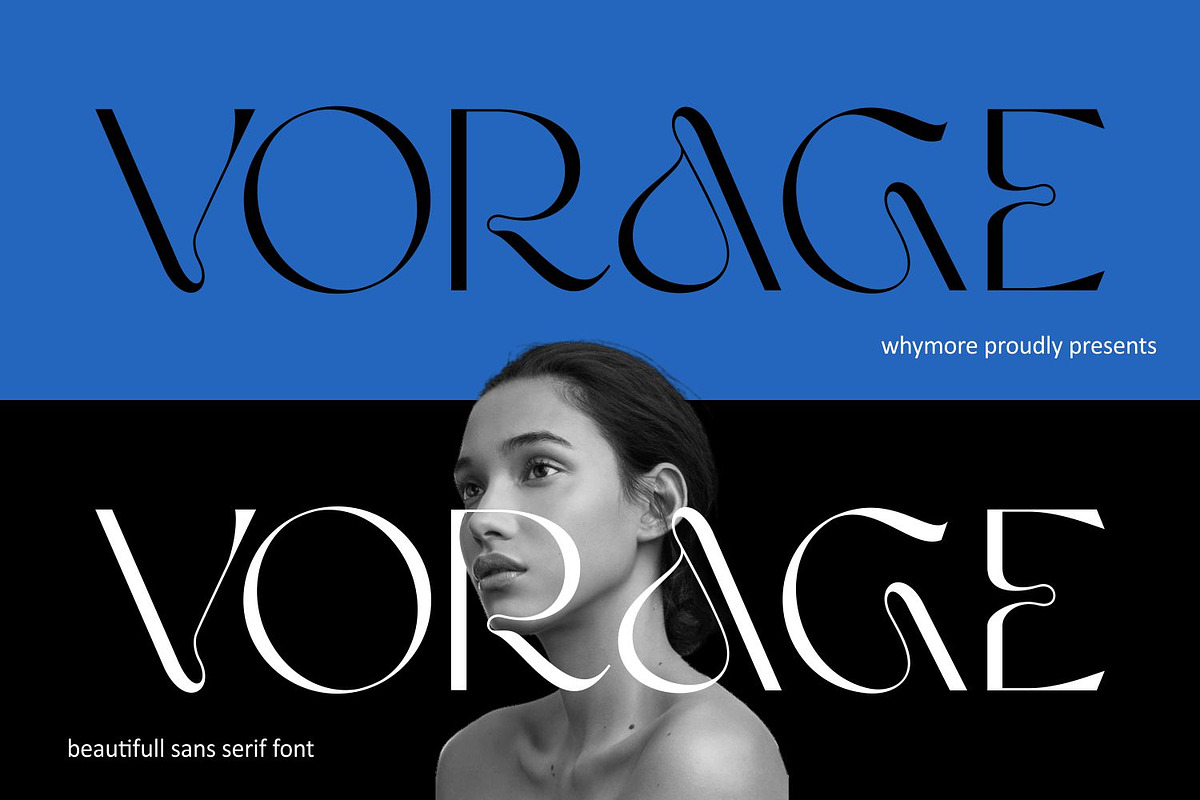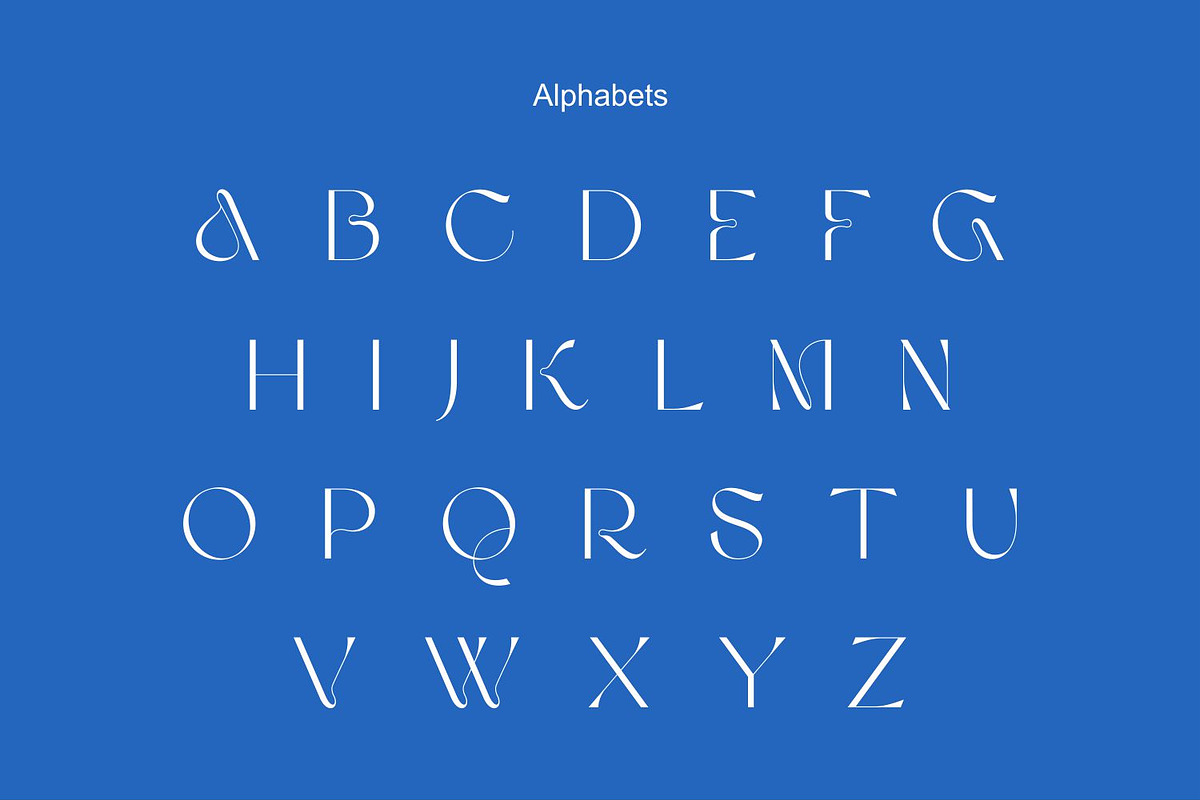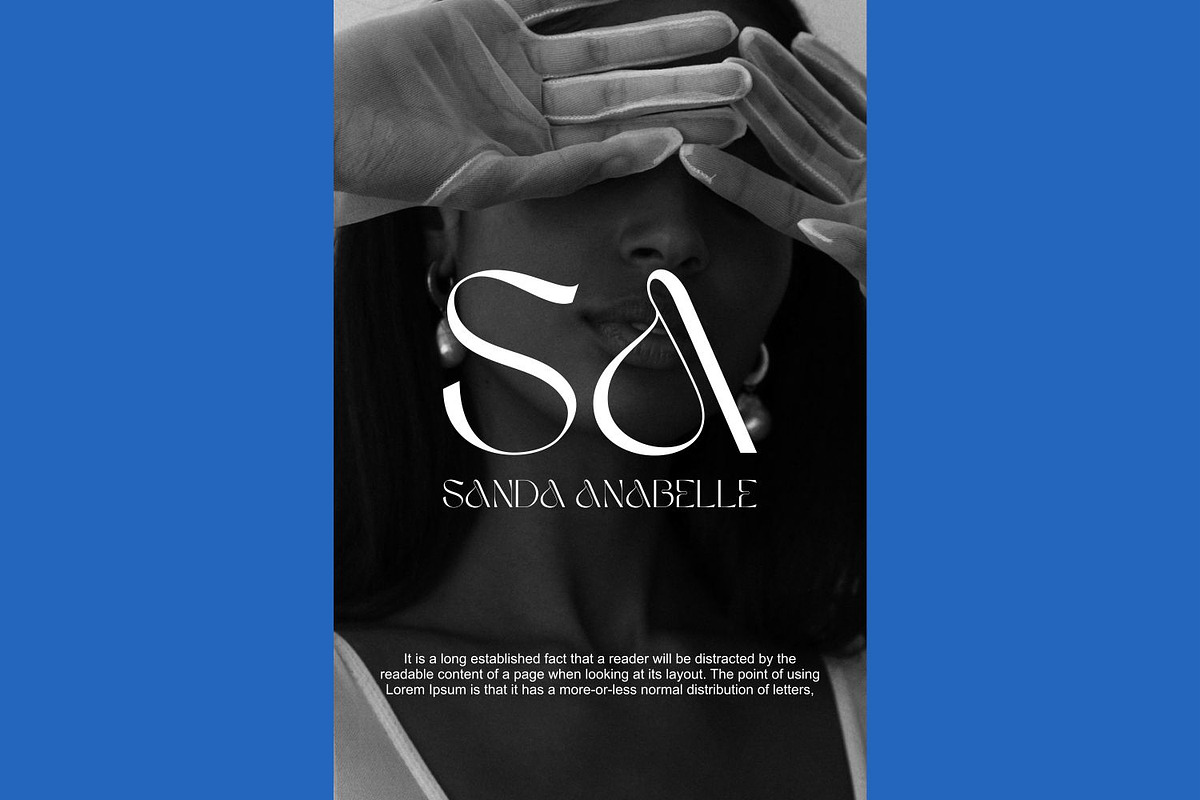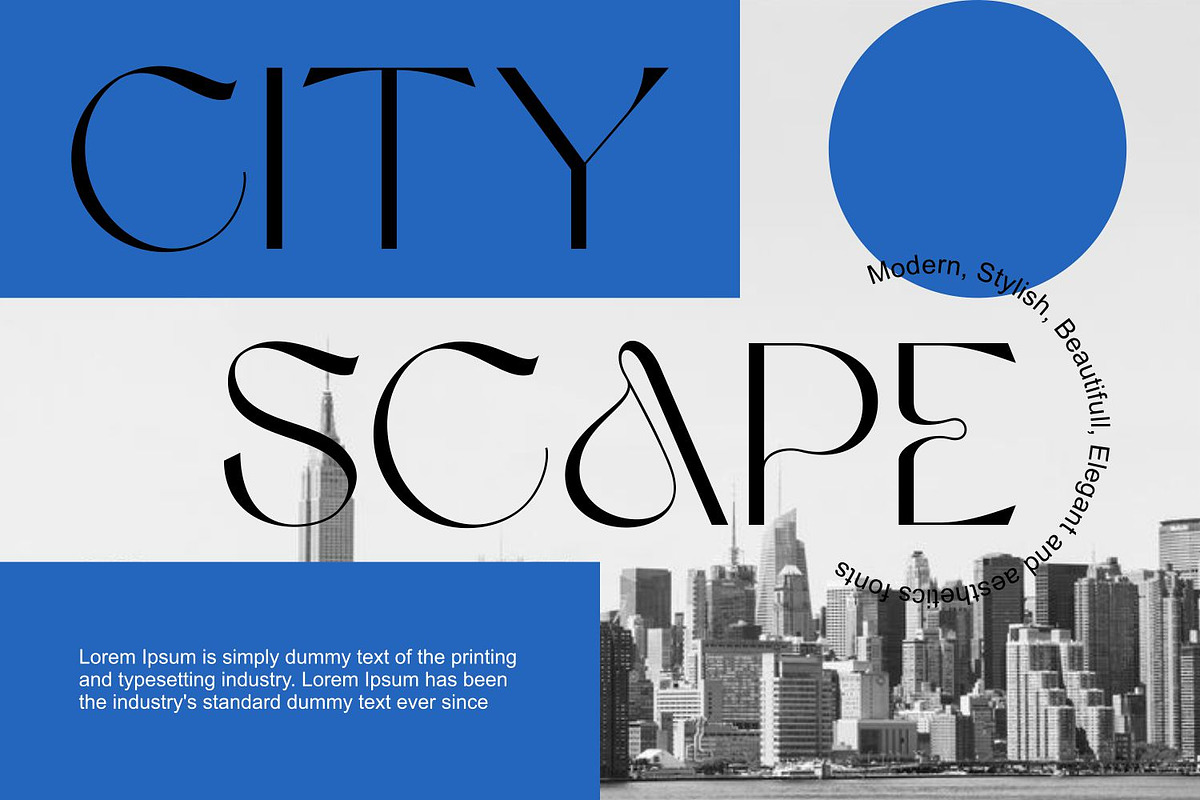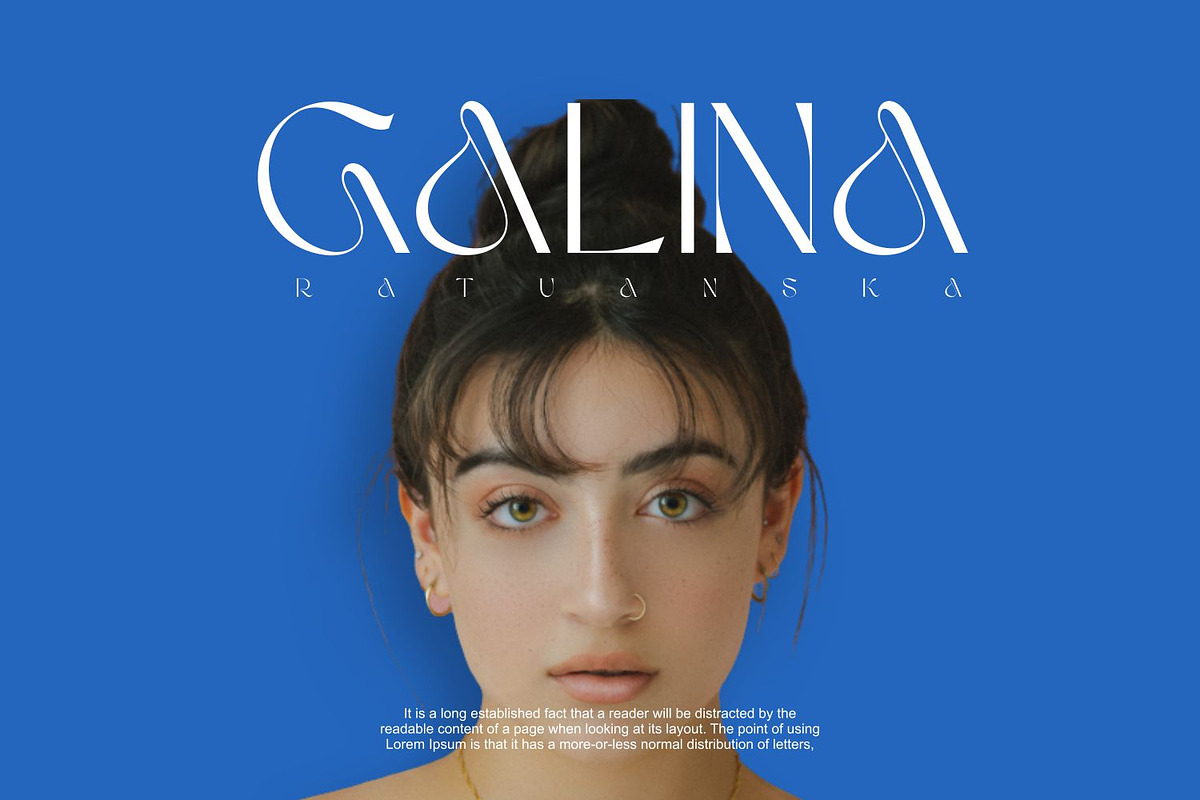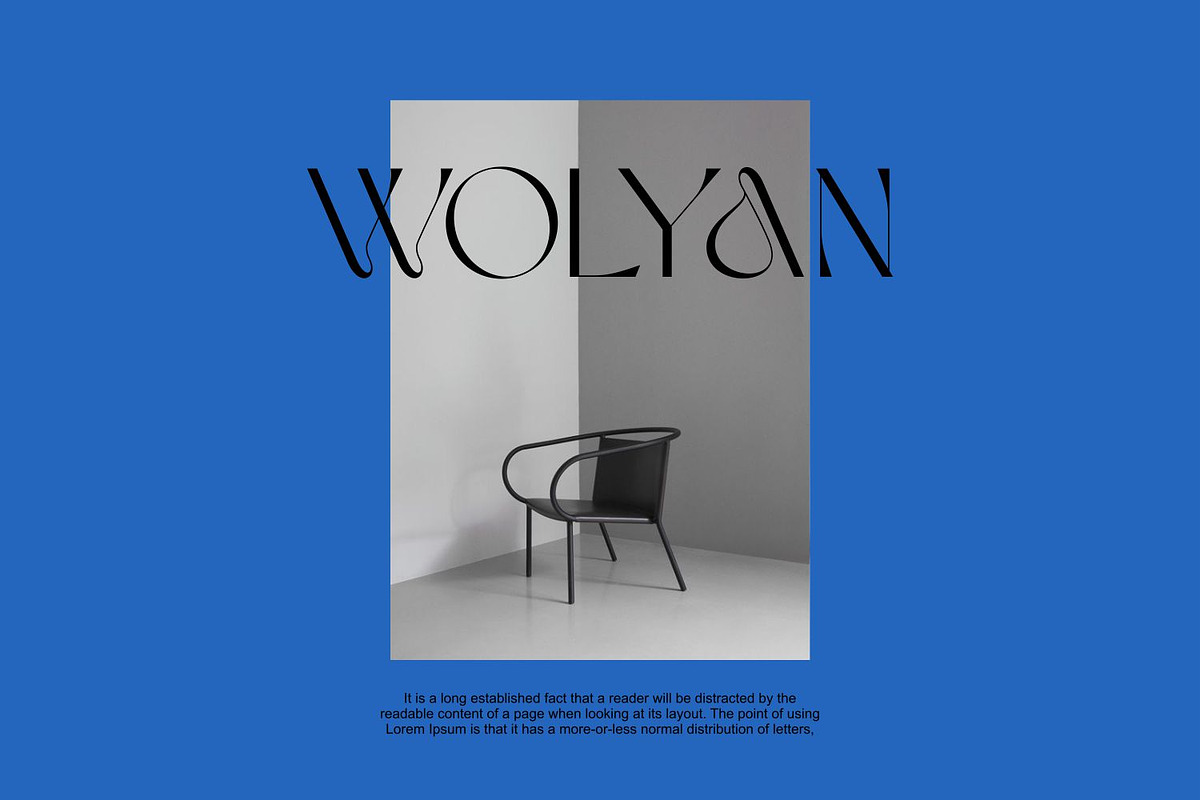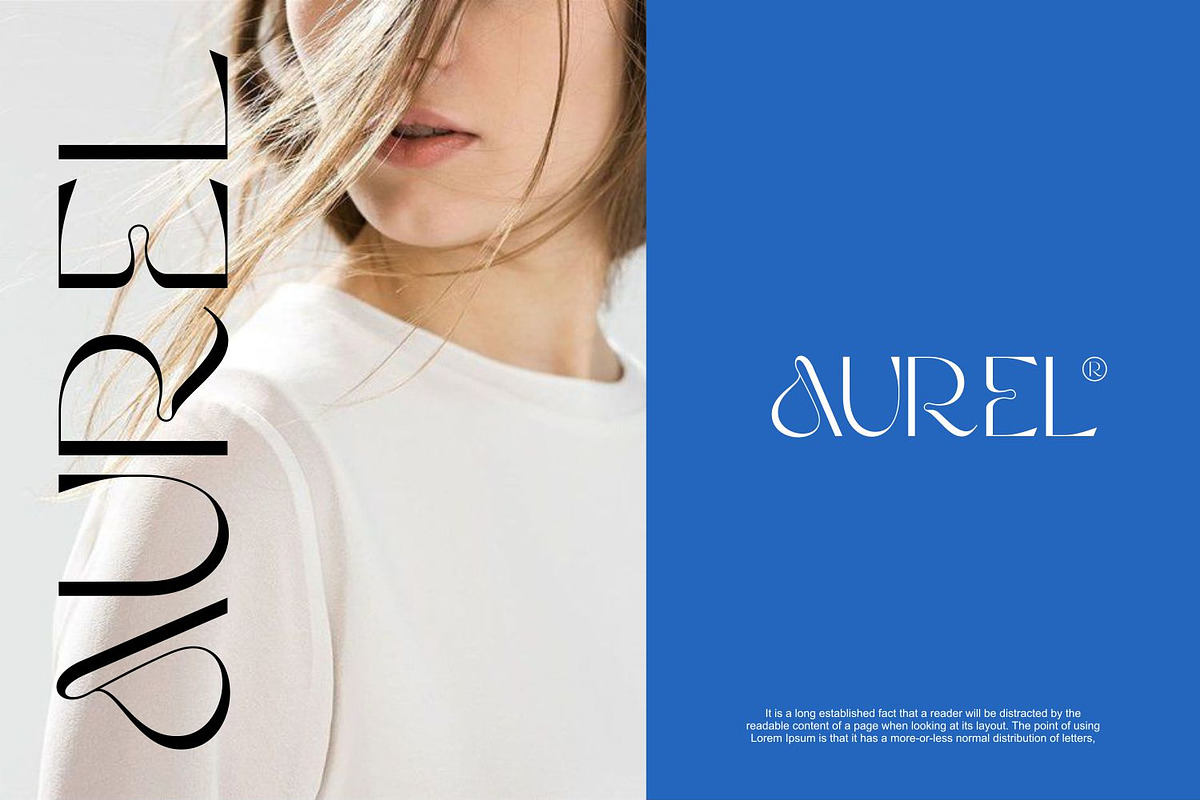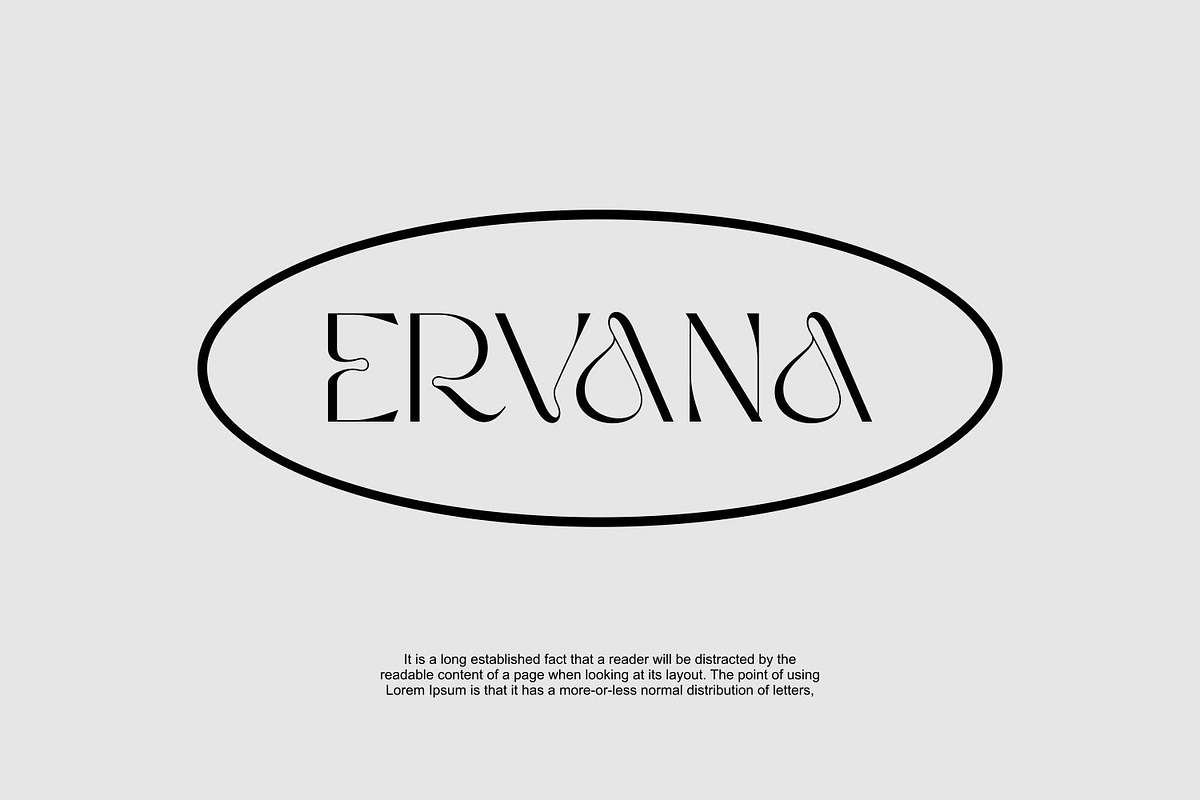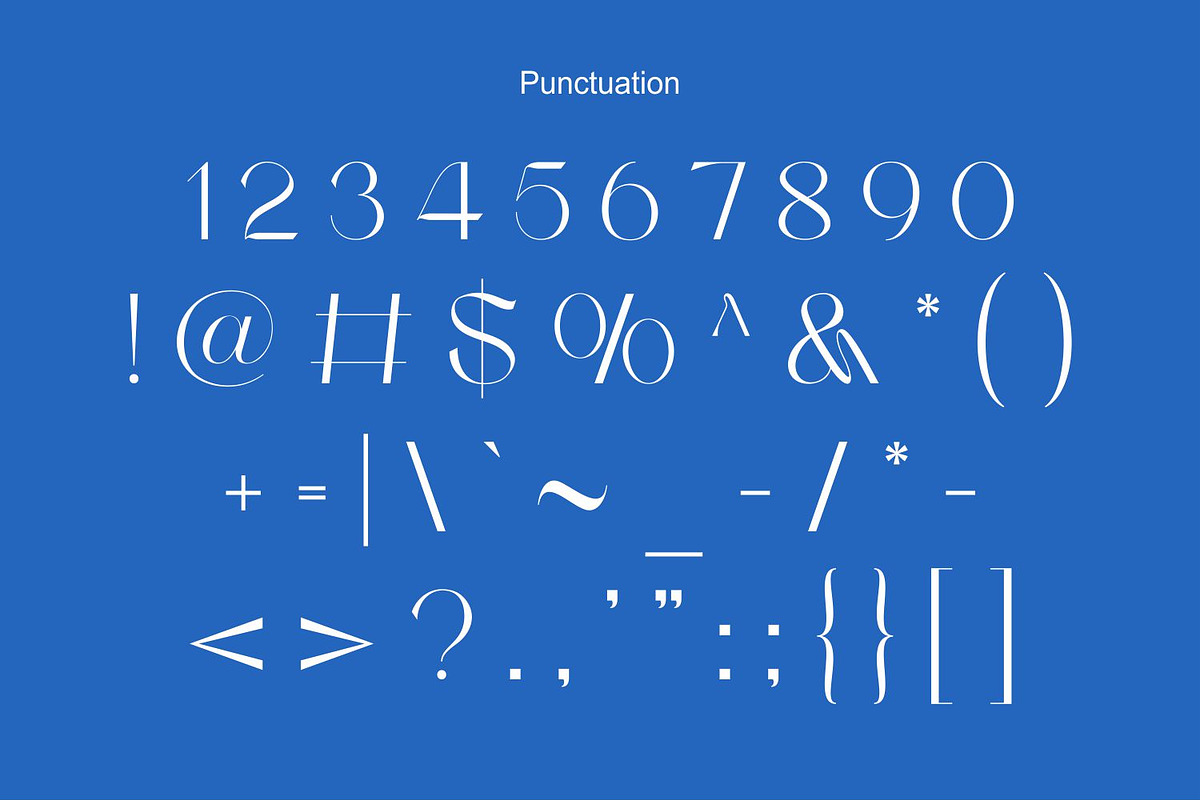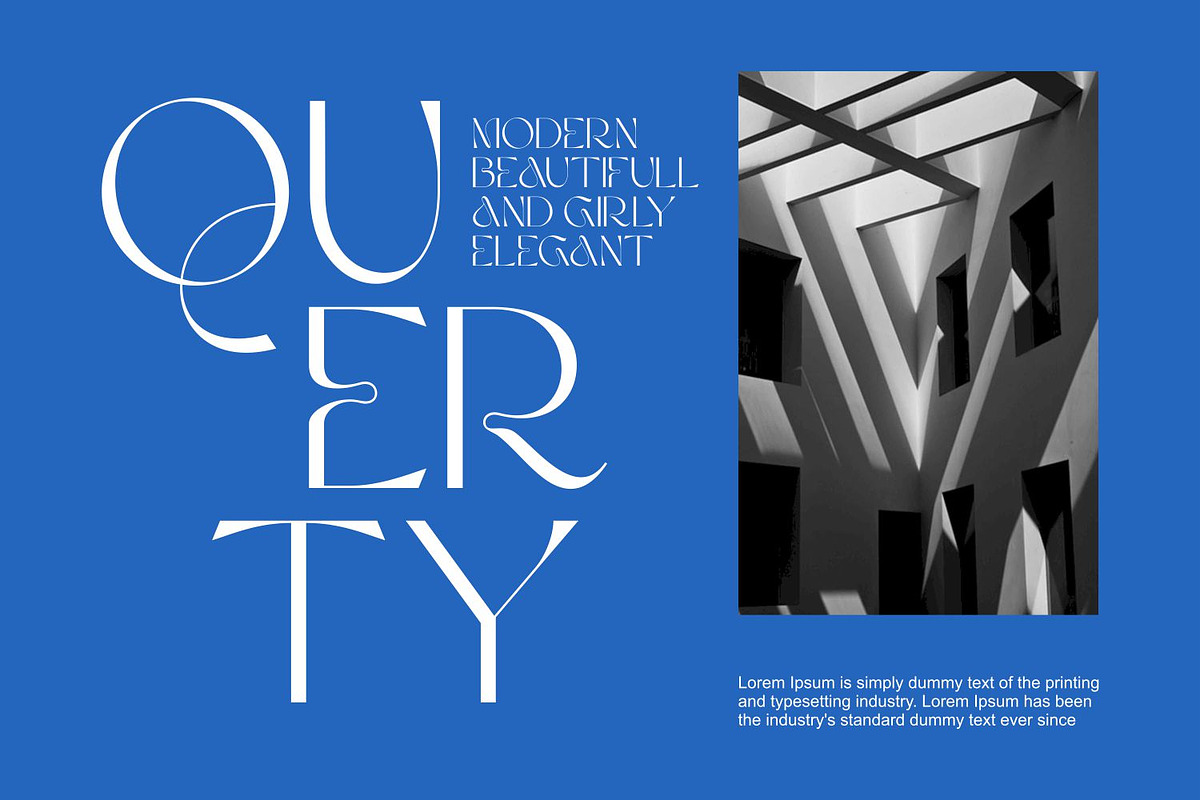
Vorage | Beautiful Sans Serif
The Vorage Font is a stunning sans-serif typeface that exudes modern elegance and versatility in every letter. With its clean lines, balanced proportions, and subtle details, this font adds a touch of sophistication to any design project. Whether you’re creating branding materials, website headers, or editorial layouts, the Vorage Font brings a sense of refined charm that captivates the viewer. Its versatility and timeless appeal make it suitable for a wide range of applications, ensuring your designs stand out with a touch of contemporary beauty.